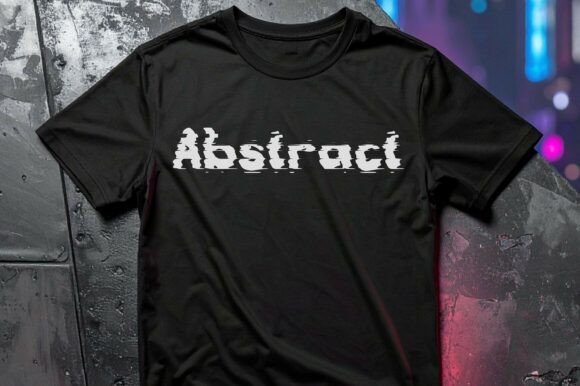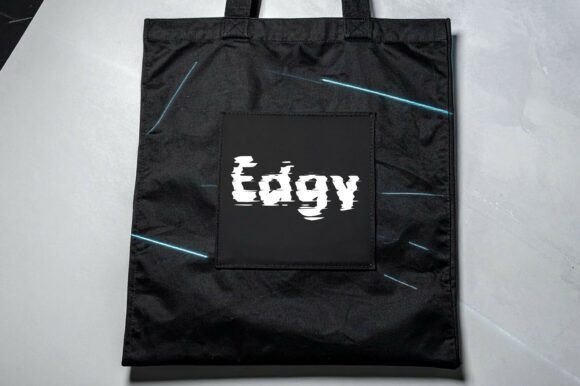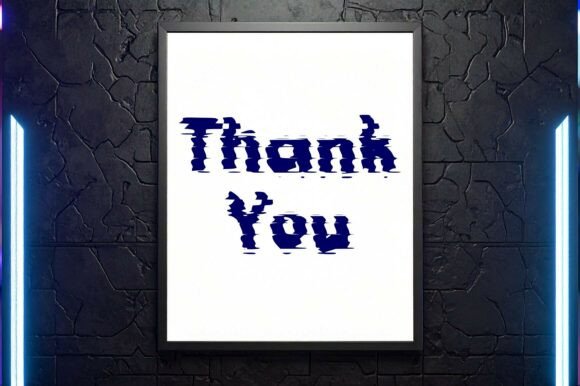
Embracing the Chaos: A Deep Dive into Cholesterol Glitch Font
I’ll never forget the design project that led me to discover Cholesterol Glitch. I was working on a futuristic-themed branding campaign for a tech startup, and I was struggling to find the perfect font that captured the essence of digital disruption and innovation. That’s when I stumbled upon Cholesterol Glitch, and it completely blew me away. The font’s dynamic, glitchy characters and commanding visual presence instantly resonated with my design vision.
What Makes Cholesterol Glitch So Special?
Cholesterol Glitch is more than just a font – it’s an experience. Its genuine glitch effect, lifelike digital disarray, and pixel-perfect static add an ingenious touch, recreating the feeling of a data meltdown. This font is perfect for designs seeking that cutting-edge, fierce, and technologically influenced essence.
Honest Review: The Good and the Quirks
- ✨ Unique and modern allure that instantly grabs attention
- ✅ Dynamic, static-infused characters that add a touch of digital chaos
- 💻 Perfect for designs that require a cutting-edge, tech-forward feel
- 🎨 Versatile and flexible, suitable for various design projects
- 🤔 May not be suitable for body text or reading-heavy content due to its bold and glitchy nature
- ⚠️ Some characters may require manual adjustments for optimal legibility
The Story Behind Cholesterol Glitch
Cholesterol Glitch was inspired by the raw energy of digital disruption and the beauty of technological flaws. Its creator aimed to capture the essence of a data meltdown, where digital systems fail and chaos ensues. The result is a font that’s both futuristic and rebellious, perfect for designs that dare to cross boundaries.
Q: What makes Cholesterol Glitch unique?
A: Cholesterol Glitch’s genuine glitch effect, lifelike digital disarray, and pixel-perfect static make it a standout font that adds an ingenious touch to any design.
Q: Is Cholesterol Glitch suitable for body text?
A: Due to its bold and glitchy nature, Cholesterol Glitch may not be suitable for body text or reading-heavy content. However, it’s perfect for headlines, titles, or design statements that require a strong visual presence.